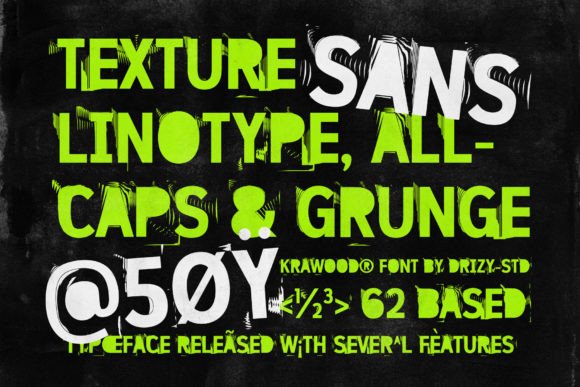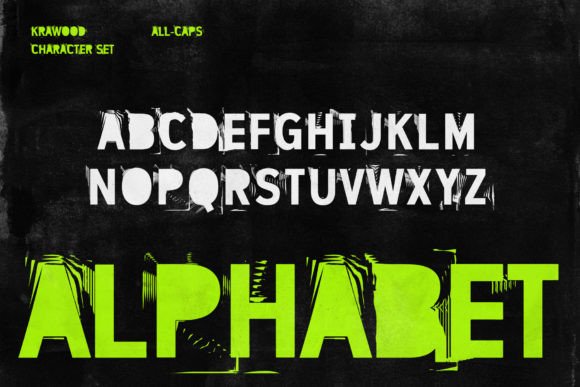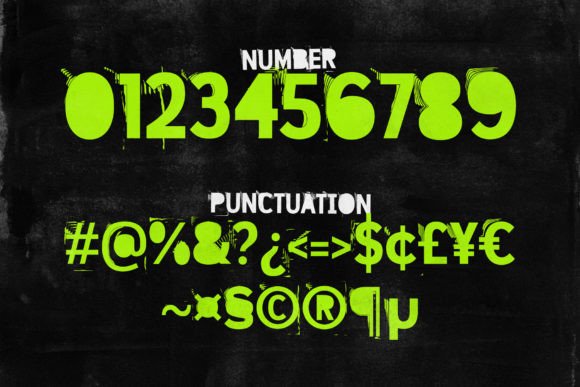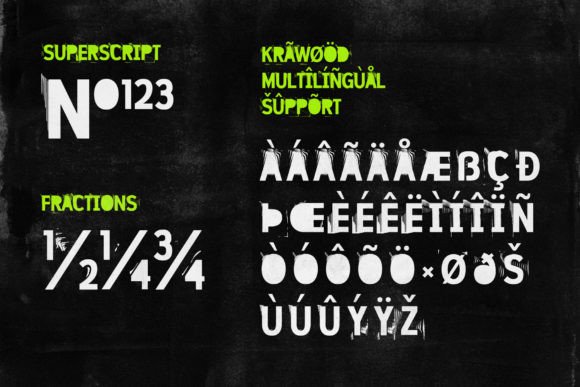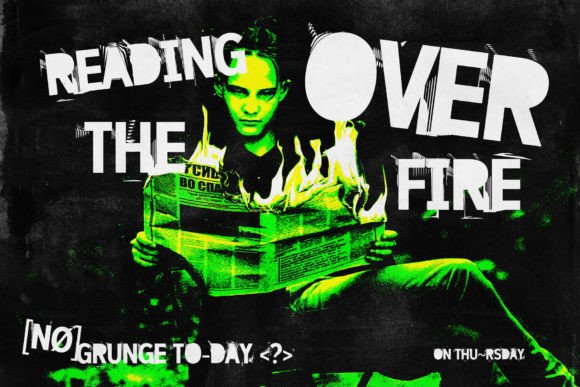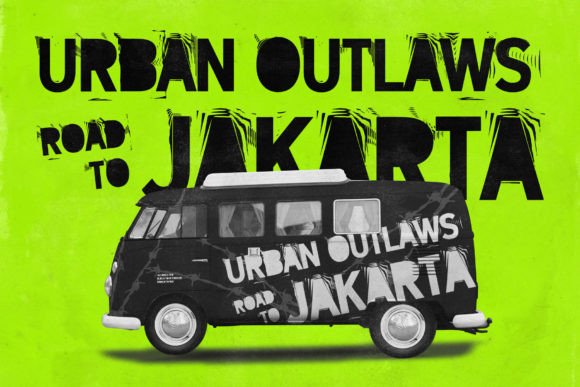
Introduction to Krawood Font
Krawood, a distinctive entry in the Linotype Grunge Pointillism Font collection, embodies the raw energy and unpredictable nature of urban street art, merging it with the meticulous nuances of pointillism.
This font stretches the boundaries of traditional typography, introducing a design that is as chaotic as it is controlled, as rough as it is refined .
Key Features of Krawood Font